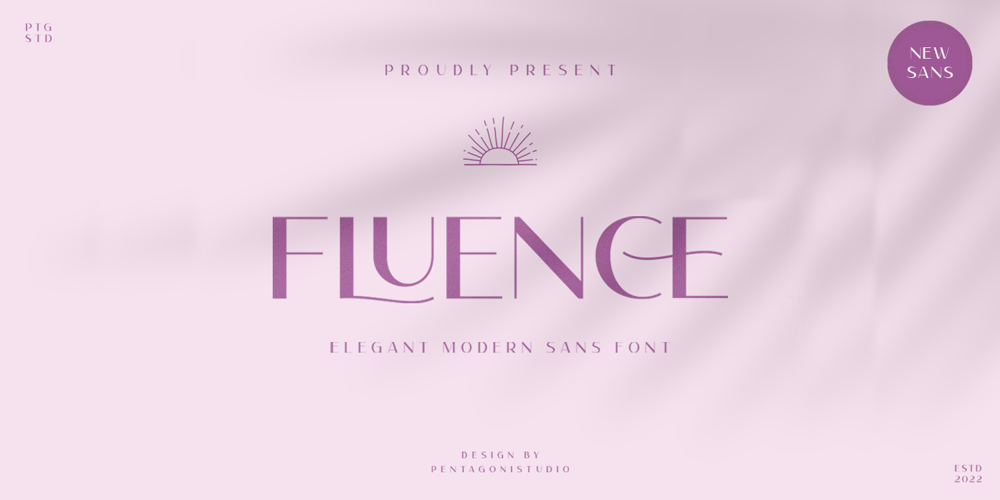
Fluence PS Font Family was designed by Burhan Adiatma and published by pentagonistudio. Fluence PS contains 2 styles and family package options. Fluence PS Is An Elegant Sans Serif Font Inspired By Feminine and Elegant Character.SOFTWARE REQUIREMENTS :Fonts and alternate : No special software required they may be used in any basic program /website apps that allows standard fonts That’s it folks! You can go ahead and get cracking :)Follow My Shop For Upcoming Updates Including Additional Glyphs And Language Support. And Please Message Me If You Want Your Language Included or If There Are Any Features or Glyph Requests, Feel Free to Send me A Message. Have a Good Day !